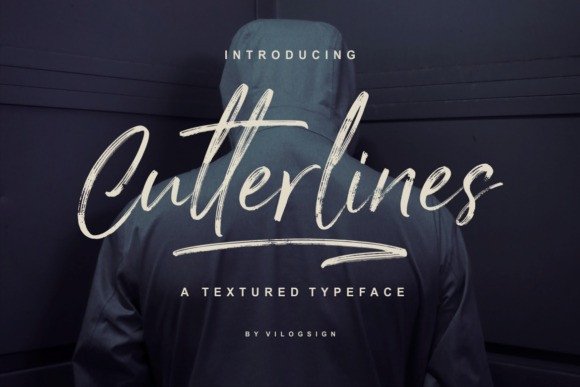
Cutterlines Brush Font
Cutterlines is Handmade Font Brush, with combination lifestyle and street-wise brush font. With extra attention to quick strokes and sharp details,
Cutterlines to deliver a message expressly and quickly, ideal for logos, apparel, quotes, product packaging, or anything which needs a typographic turbo-boost.
You can mixing up both upper and lowercase characters in a word to achieve the best text layout!